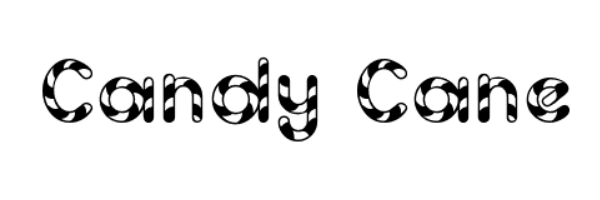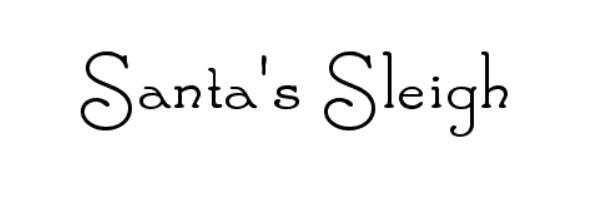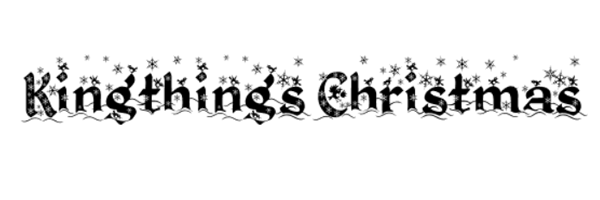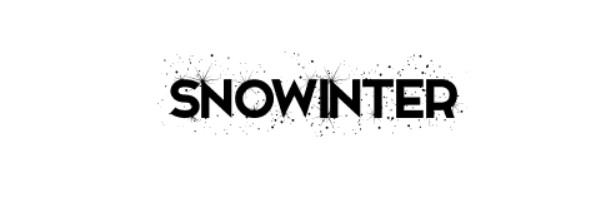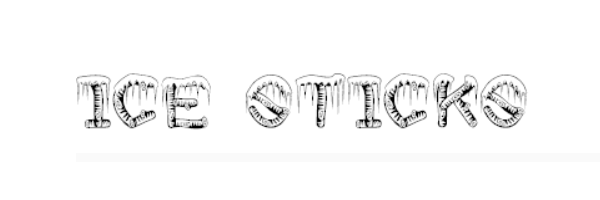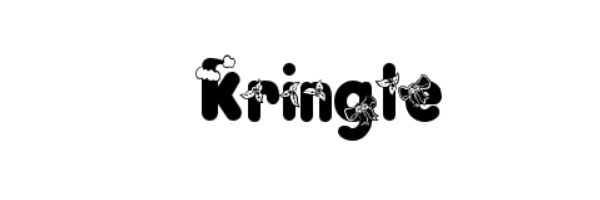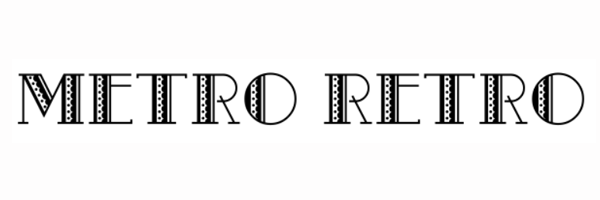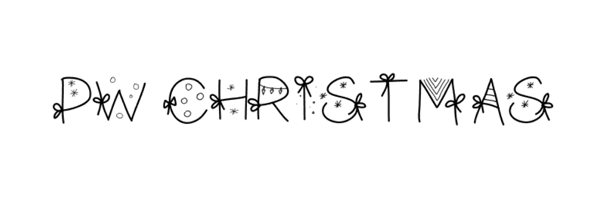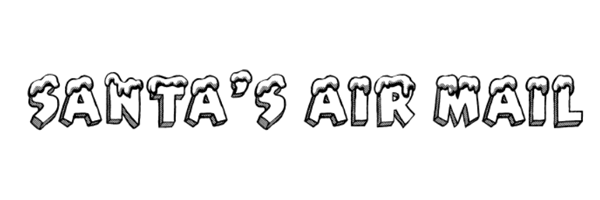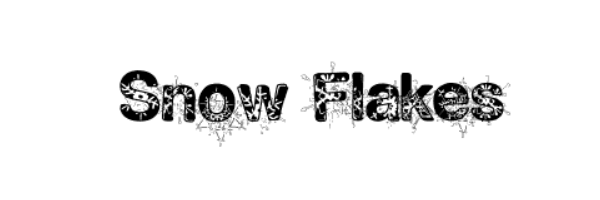
Xmas Freebies: 20 Great Xmas Fonts 2015
1. Snowinter
Snowinter
This is a beautiful font with many characters available in the free version so that you could find use for it in your personal projects and personal graphics, community fliers, charities and such. It's most suitable for headlines of all sizes, as well as for text blocks that come in both maximum and minimum variations.
2. Christmas On Crack
Christmas On Crack
Christmas On Crack by David Lovelace, aka Parallax, has a similar Gothic twist but with a dash of fun thrown in. There are 80 characters in Parallax's Christmas On Crack font. It's available for Mac and PC.
3. Candy Cane
Candy Cane font
This sweet font is best for Christmas greetings or birthday party invitations. It's suitable for headlines of all sizes, but it does well in a variety of text lengths as well.
4. Santa's Sleigh
Santa's Sleigh
Add a vintage feel to your Christmas designs with HypoTypo's Santa's Sleigh. It comes in three weights: regular, bold and – our favourite – deluxe.
5. Kingthings Christmas
Kingthings Christmas
Kingthings Christmas font is decorative font which is designed by Kingthings. It's free for personal use, and comes complete with upper and lowercase lettering, numerals and punctuation.
6. Metro Retro NF
Cartoon Blocks Christmas
Tired of traditional Christmas fonts? Make an impact with Metro Retro, a dramatic sans serif published by Nick's Fonts. Used sparingly, it's perfect for festive headlines in large point sizes.
7. Santa's Air Mail
Santa's Air Mail
This is another beautiful Xmas font that is great for usage in posters, logotypes and headlines. Santa's Air Mail is free for personal use.
8. PW Christmas Tinsel
PW Christmas Tinsel
Want to bring Xmas spirit on your website? PW Christmas Tinsel specially designed for Christmas will be a good choice for you. Download and bring joy to your website.
9. Kringle
Kringle
Kringle font is a fresh, festive font for holidays. Free for personal and non-profit use, it's a sweet font that's guaranteed to add some sparkle to your Christmas projects.
10. Xmas TFB Christmas
Xmas TFB Christmas
Looking for some beautiful Xmas icon fonts? Xmas TFB Christmas with 85 letters will make your graphics or your seasonal project more stunning.
11. Christmas Snow
Christmas Snow
This font comes up with snowing uppercase letters to brings snow to your projects. Again, it's free for non-commercial use and perfect for those Christmas designs.
12. Snow For Santa
Snow For Santa
Another snowy font with uppercase, number and many icons for you to choose.
13. Christmabet
Christmabet
Christmabet is a creative free Christmas fonts with beautiful letter that will spruce up your creative projects this December
14. PW Christmas
PW Christmas
This holiday font was created by www.peax-webdesign.com You can use it for free on your personal projects
15. DH Snowflakes
DH Snowflakes
This is a great collection of snowflakes in various style
16. Snow Flakes
Snow Flakes
Snow flakes will be a great choice for Christmas.
17. Merry Christmas
PaymentFont
This is a beautiful Christmas font designed by Måns Grebäck. Use the characters *#+ and the numbers to make stars, flakes and Christmas symbols. For example: *Merry0Christmas+
18. KGChristmasTrees
KGChristmasTrees
The KG Christmas Trees font is a dingbat font by Kimberly Geswein Fonts.
19. Ice Sticks
ice sticks
Ice sticks includes frozen uppercase letters to bring ice and snow to froze your graphics and website.
20. Holly Nites
ice sticks
Jester Font Studio's charming Holly Nites Font is a blocky, 3D font decorated with a holly leaf pattern. The font is perfect for Christmas cards.